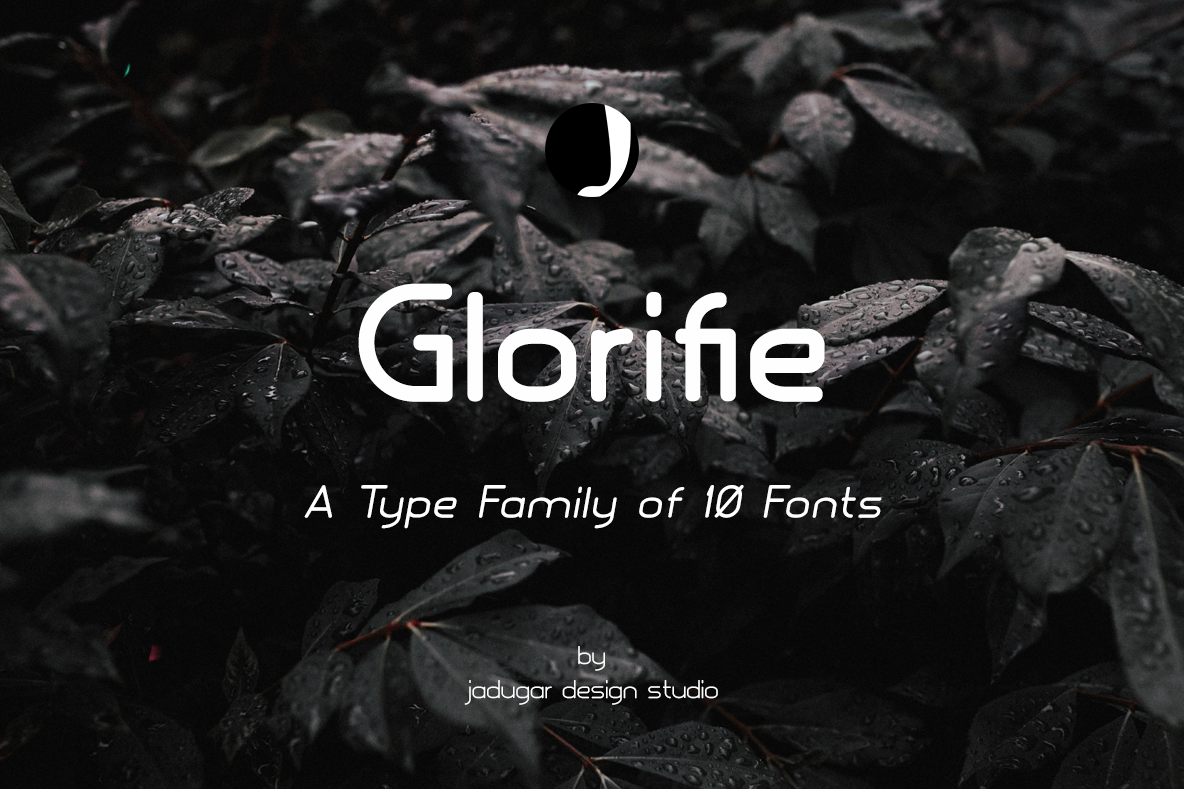
Finally after spending good amount of time to develop first 10 fonts of Glorifie family, very simple, modern and elegant look. You will find best for your new project like magazine, website or branding. Promo offer 50% off for limited time. All 5 styles have italic styles as well. Please feel free to contact us at